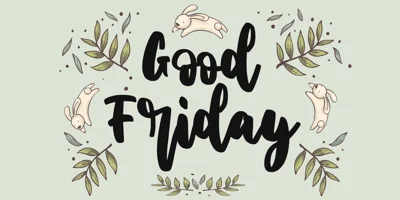
Good Friday Font
Good Friday Font is perfect for religious publications, church bulletins, Easter celebrations, spiritual book covers, faith-based organizations, Christian event invitations, inspirational greeting cards, and sacred ceremony programs. This reverent typeface works beautifully in both digital and print applications where spirituality, solemnity, and religious devotion are essential for meaningful communication with faithful communities.
What makes Good Friday Font exciting is its profound combination of sacred tradition and contemporary reverence. The thoughtfully designed letterforms feature graceful curves, cross-inspired elements, and spiritual details that instantly convey deep faith and religious significance. Its devotional personality makes it ideal for organizations seeking to establish authentic connections with religious communities. The font's ability to express both solemnity and hope creates a powerful visual representation of faith and resurrection.
The Good Friday Font family includes various sacred styles: Regular, Bold, Light, Script, Gothic, and Decorative versions with special religious symbols, cross ornaments, and biblical decorative elements. Each family member maintains the spiritual essence while offering different levels of ceremonial formality. The extensive character set supports multilingual coverage and includes specialized religious symbols, biblical references, and sacred ornaments that enhance faith-based communication possibilities.
For religious branding, church marketing, or spiritual design projects, Good Friday Font provides the perfect typography solution for creating meaningful connections with believers and spiritual seekers. Its reverent craftsmanship and sacred character make it an essential resource for designers who want to honor religious traditions and create designs that inspire faith and devotion.